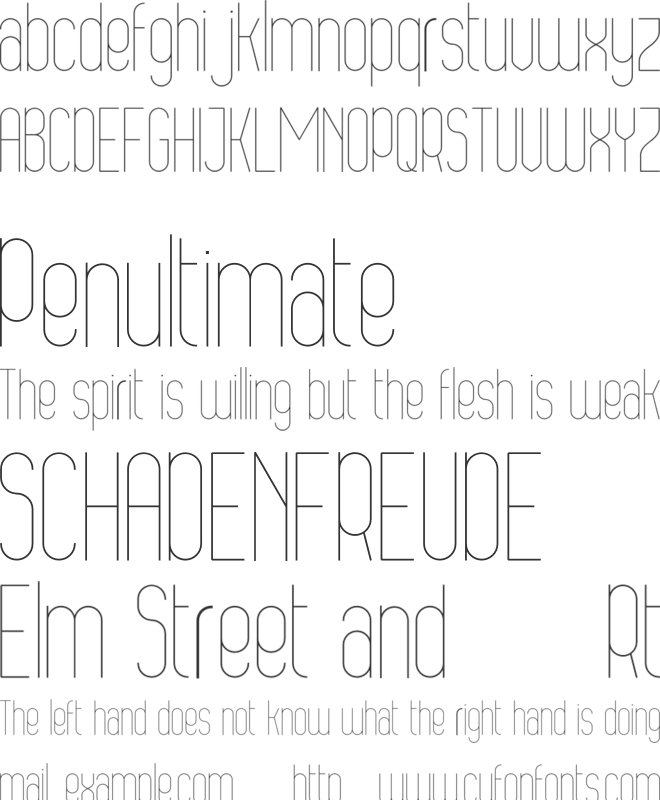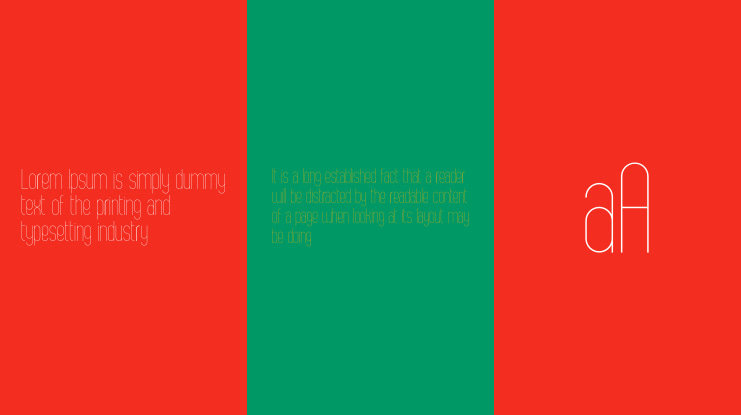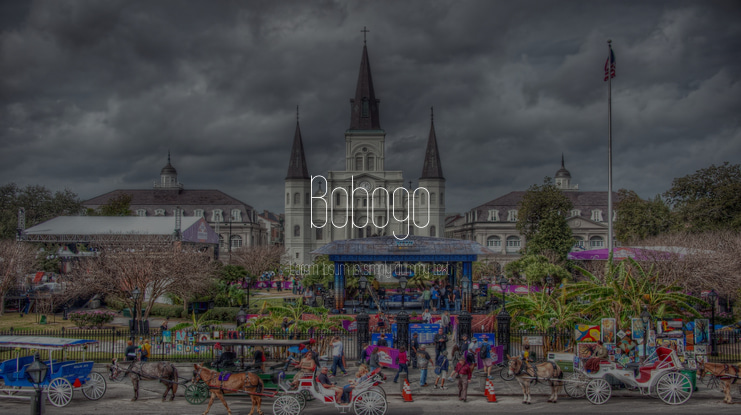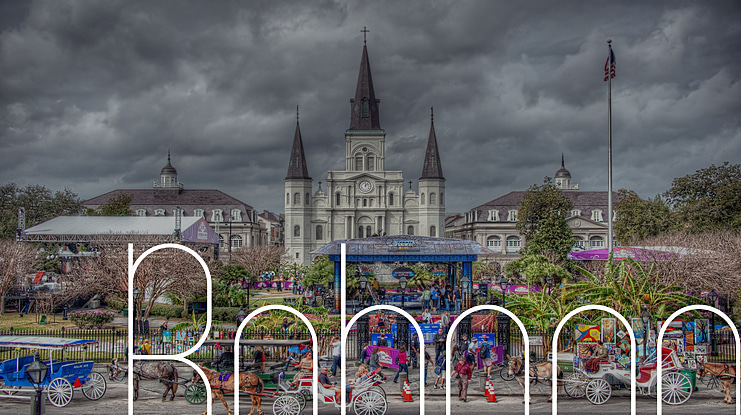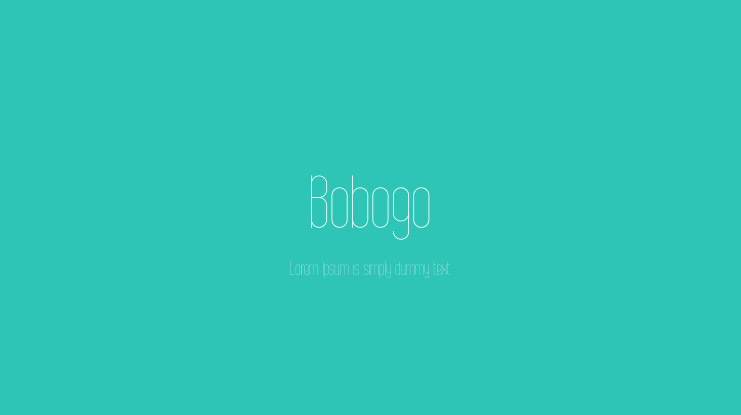
Bobogo Font
This is a unique and breathtaking monospace display font perfect for a wide variety of designs. No matter the topic, this font will be an incredible asset to your fonts’ library, as it has the potential to elevate any creation. This font is good for logo design, Social media, Movie Titles, Books Titles, a short text even a long text letter and good for your secondary text font with sans or serif.